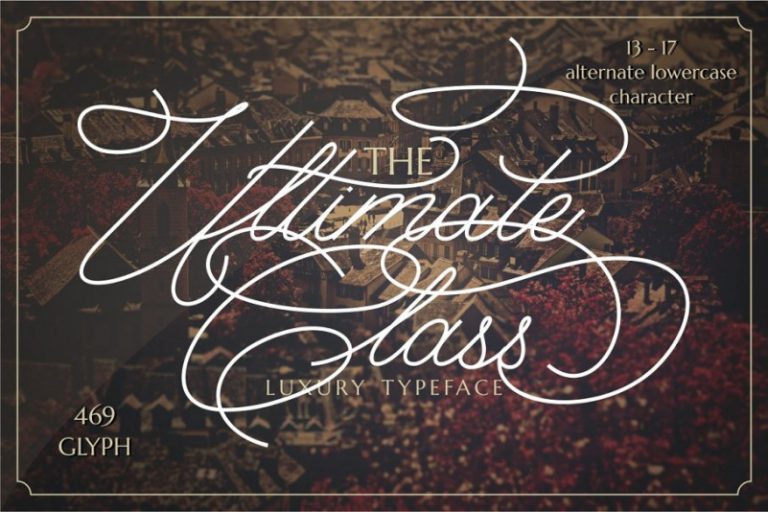
The Ultimate Class Script Font
Hello friend. I hope you are interested in this font,The fonts are great for product logo,wedding card logo, and much more. Proudly presents latest product The Ultimate Class Script Font. A elegant, classy and stylish script typeface. This font also have plenty of beautiful swashes with swirls, 13 – 17 alternate character for lowercase letter. Ultimate Class perfect for signature,quote, branding, wedding invite and card, elegant logo, poster, packaging, stationery, website, and many more. Come with open type feature with a lot of alternates, it’s help you to make great lettering.